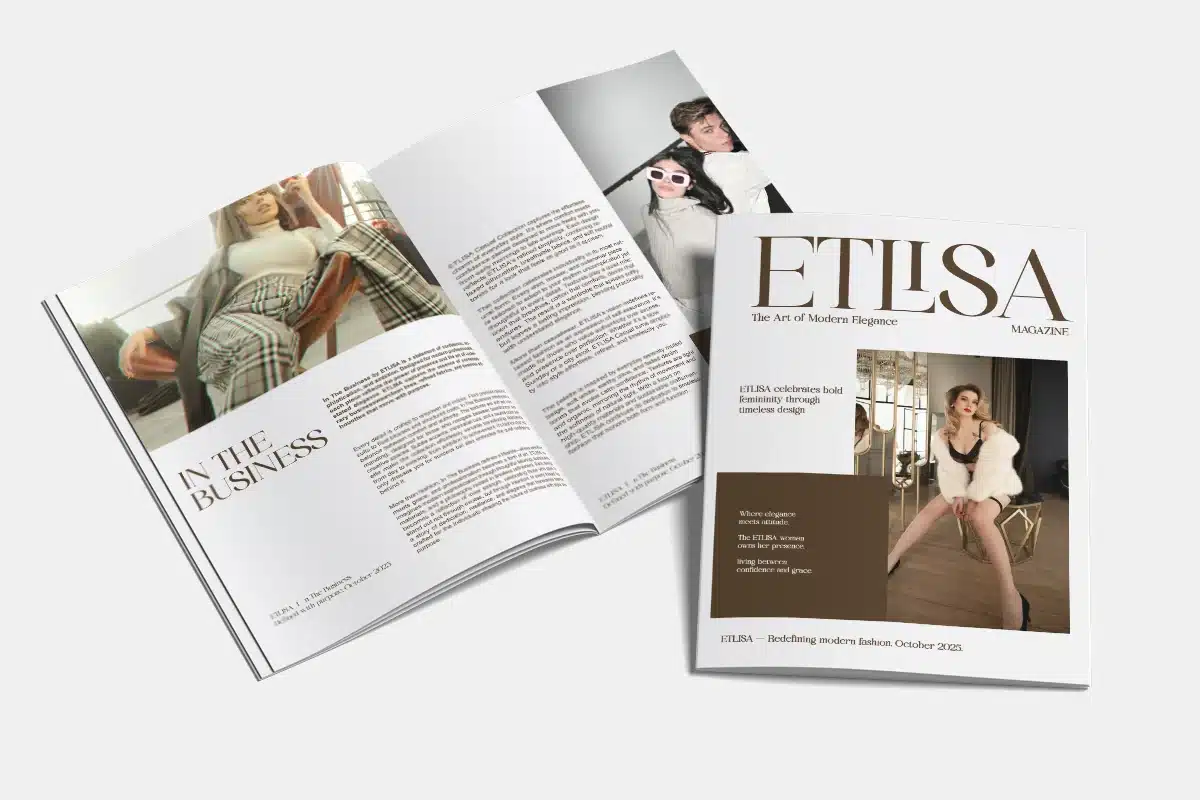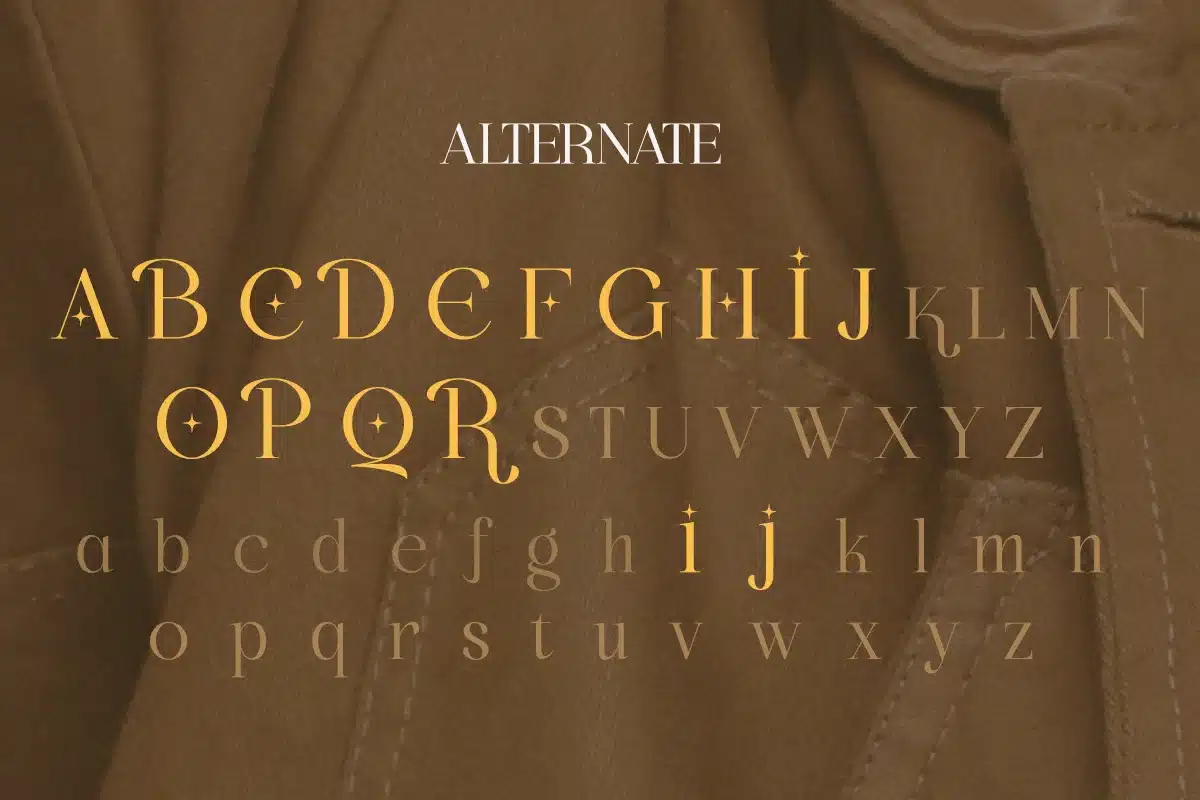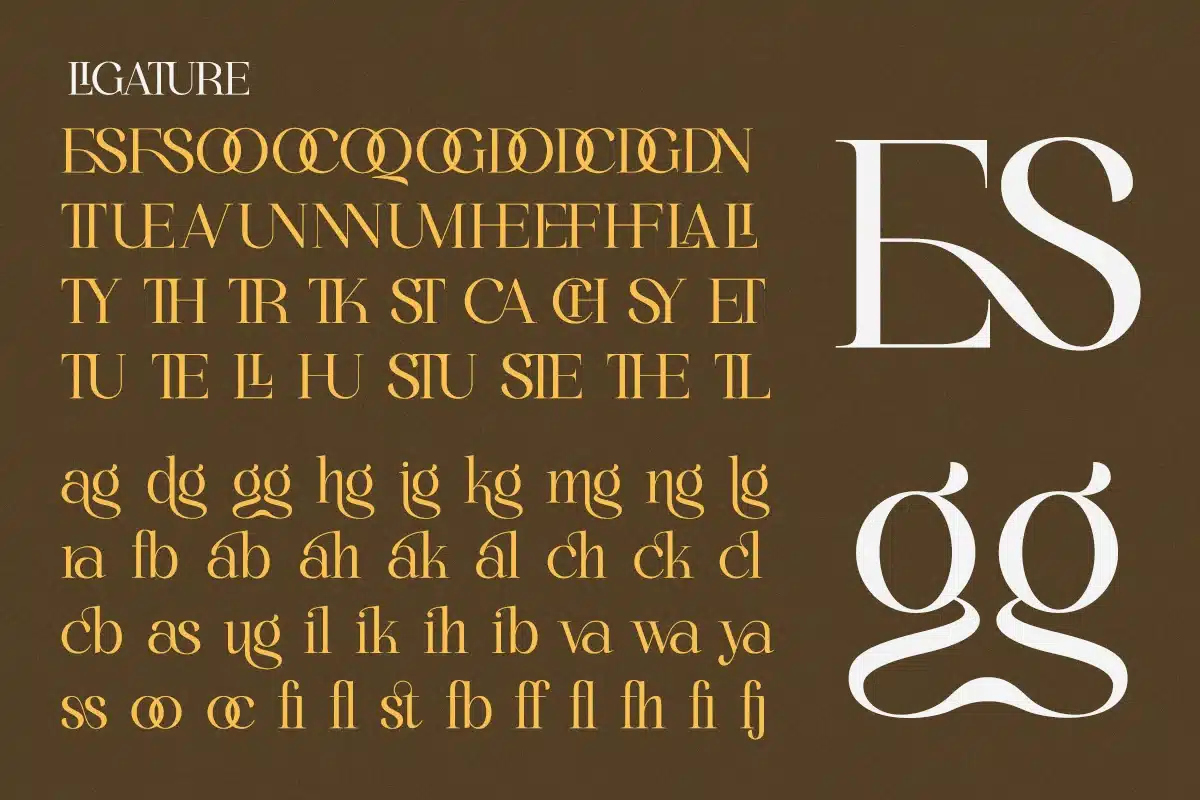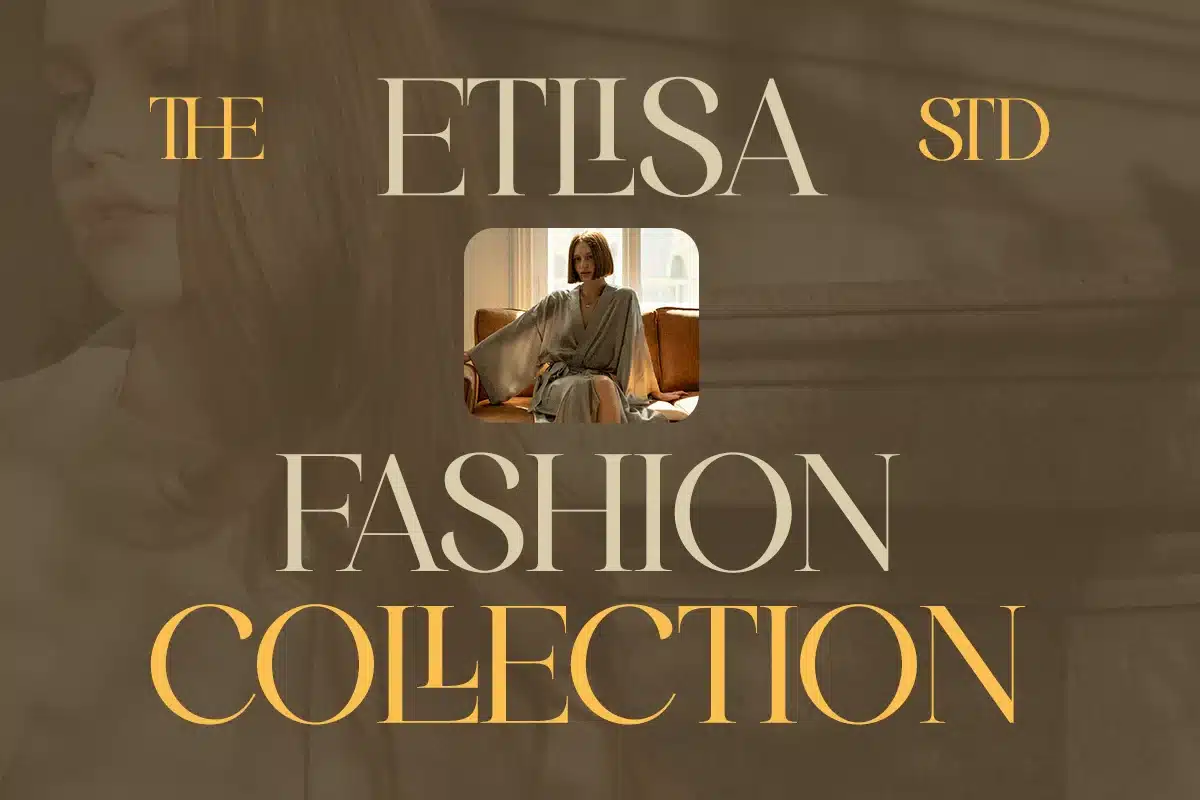
Bigalfia – Elegant Modern Serif Branding Font
Bigalfia is an elegant modern serif font designed to deliver softness, clarity, and refined luxury.
With graceful curves and balanced proportions, this typeface is perfect for premium branding, editorial layouts, and beauty-focused design projects.
Bigalfia blends modern elegance with timeless serif structure, making it ideal for designers who seek subtle sophistication.
Features
- Regular & Italic
- Uppercase & lowercase
- Alternates & ligatures
- Smooth elegant serif forms
- Professional kerning
Luxury branding, beauty brands, skincare packaging, editorial design, lifestyle logos, fashion labels, wedding stationery, and premium marketing materials.